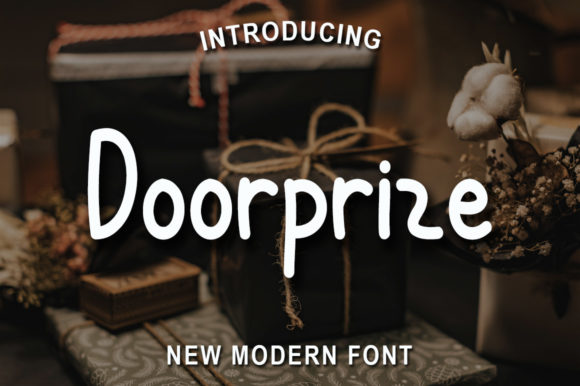
Introducing Doorprize Font: The Perfect Handwritten Font for Your Creative Projects
Are you a designer or crafter looking for a font that can add a relaxed touch to your creations? Look no further than Doorprize Font. This simple and adaptable handwritten font is perfect for a wide range of projects, from casual social media graphics to more formal branding and advertising materials.
The Characteristics of Doorprize Font
Doorprize Font is a handwritten font that exudes an informal style and casual vibe. Its unique characteristics make it an excellent choice for designers and crafters who want to add a personal touch to their work. Here are some of the key features of Doorprize Font:
- Simple and Adaptable: Doorprize Font is a simple and adaptable font that can be used in a variety of contexts. Its clean lines and straightforward design make it easy to read and understand.
- Handwritten Style: The font has a handwritten style that gives it a personal and informal feel. This makes it perfect for projects that require a relaxed touch.
- Casual Vibe: Doorprize Font has a casual vibe that makes it ideal for social media graphics, blog posts, and other online content.
Why Choose Doorprize Font?
So, why should you choose Doorprize Font for your next project? Here are just a few reasons:
- Easy to Read: Doorprize Font is easy to read, even at small sizes. This makes it perfect for body text and other applications where readability is key.
- Versatile: The font is versatile and can be used in a wide range of contexts, from formal to informal.
- Unique: Doorprize Font has a unique style that sets it apart from other fonts. This makes it perfect for designers and crafters who want to add a personal touch to their work.
How to Use Doorprize Font
Doorprize Font can be used in a variety of ways, depending on your creative vision. Here are a few ideas to get you started:
- Social Media Graphics: Use Doorprize Font to create eye-catching social media graphics that showcase your brand’s personality.
- Branding and Advertising: The font is perfect for branding and advertising materials, such as brochures, flyers, and posters.
- Blog Posts: Doorprize Font can be used to add a personal touch to your blog posts and make them more engaging.
Tips for Pairing Doorprize Font with Other Fonts
Doorprize Font can be paired with other fonts to create a unique and visually appealing design. Here are a few tips for pairing Doorprize Font with other fonts:
- Pair with a Serif Font: Pairing Doorprize Font with a serif font can create a nice contrast and add visual interest to your design.
- Pair with a Script Font: Pairing Doorprize Font with a script font can create a beautiful and elegant design.
- Experiment with Different Font Sizes: Experimenting with different font sizes can help you create a visually appealing hierarchy of information.
Doorprize Font is a simple and adaptable handwritten font that can add a relaxed touch to your creative projects. Its informal style and casual vibe make it perfect for a wide range of applications, from social media graphics to branding and advertising materials. With its ease of use, versatility, and unique style, Doorprize Font is an excellent choice for designers and crafters who want to add a personal touch to their work.